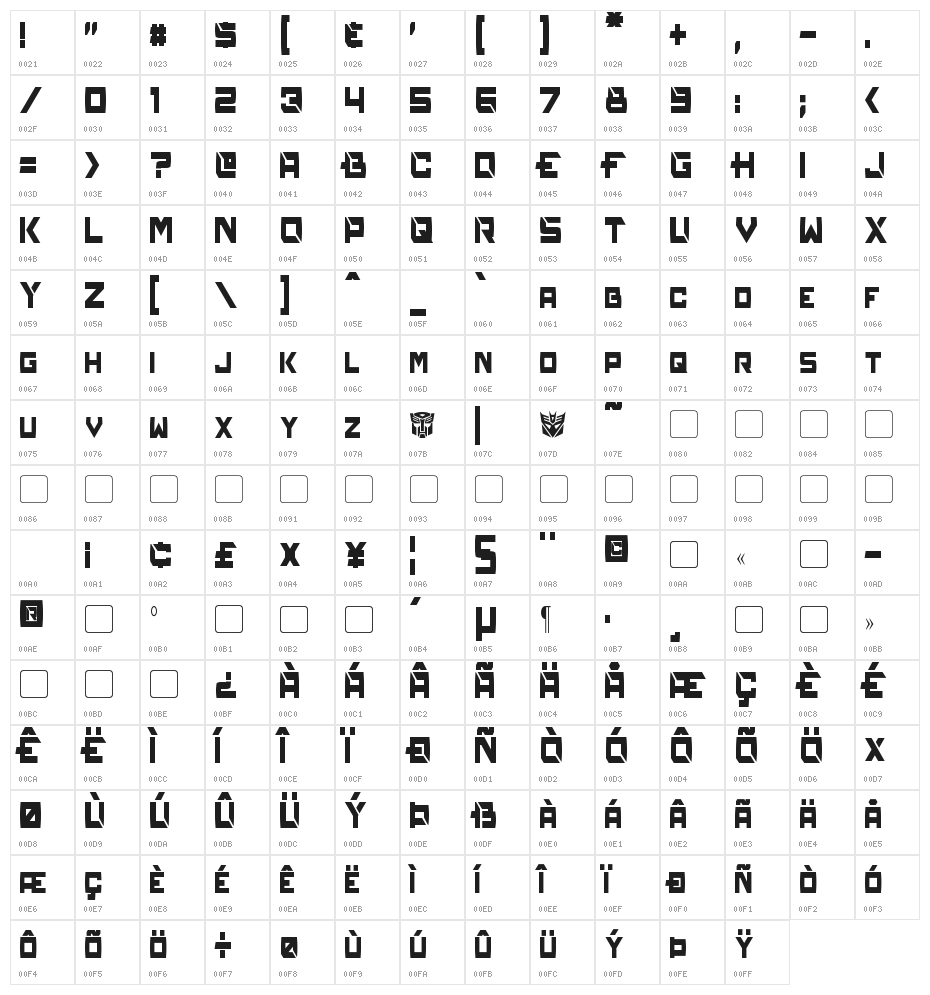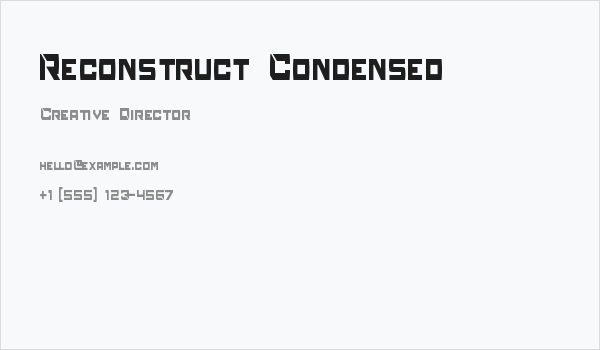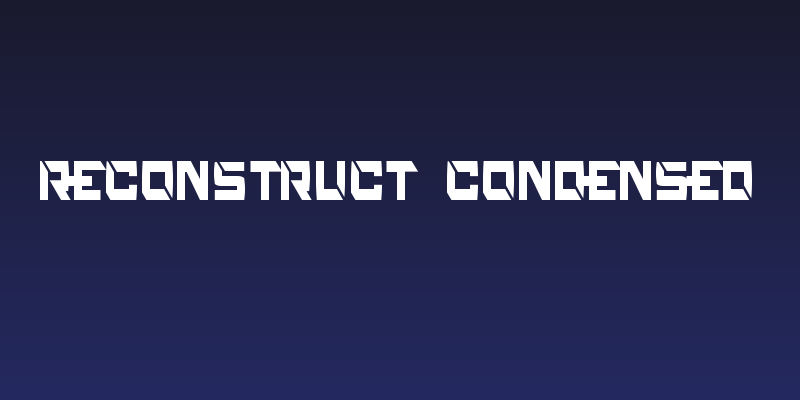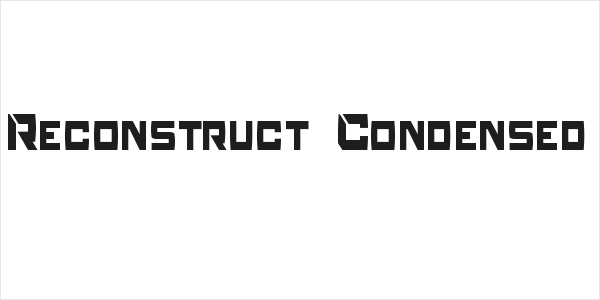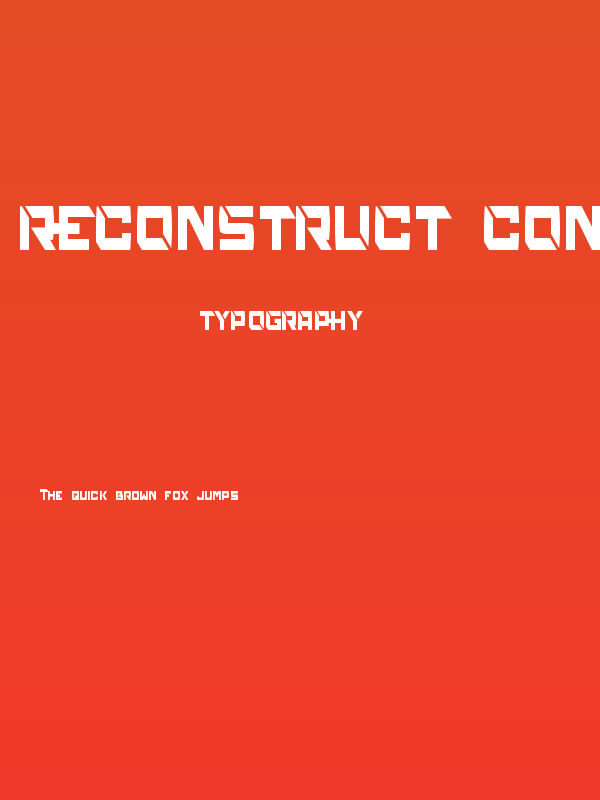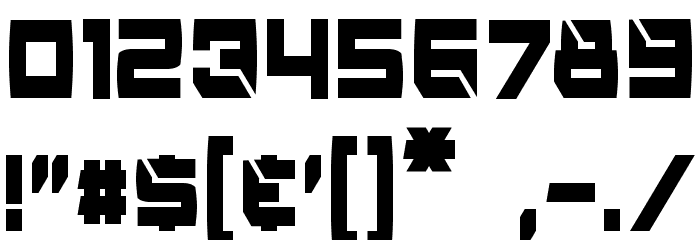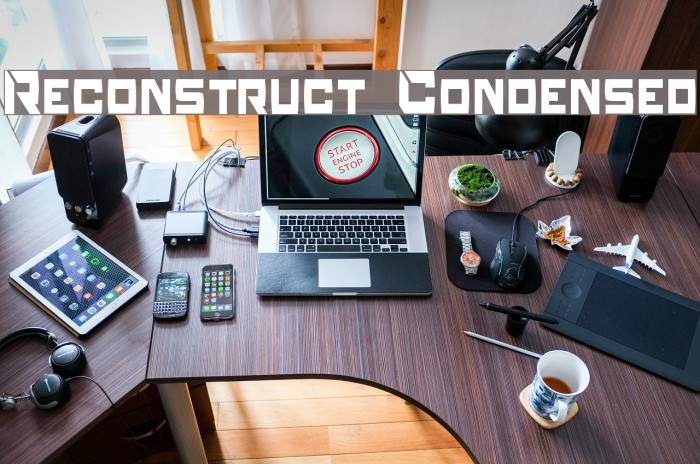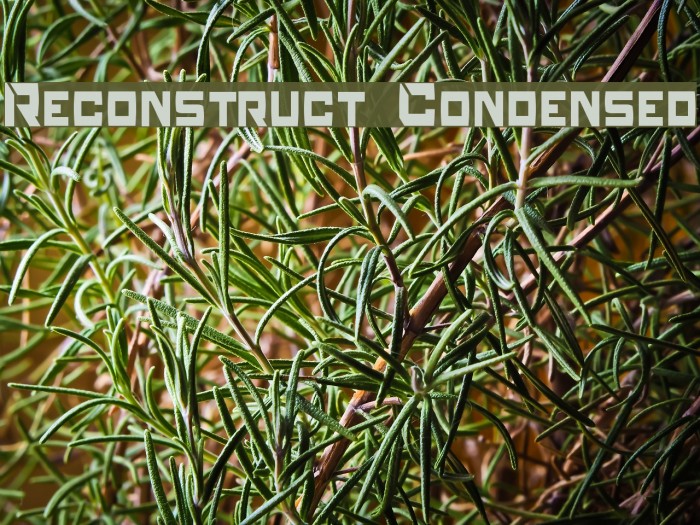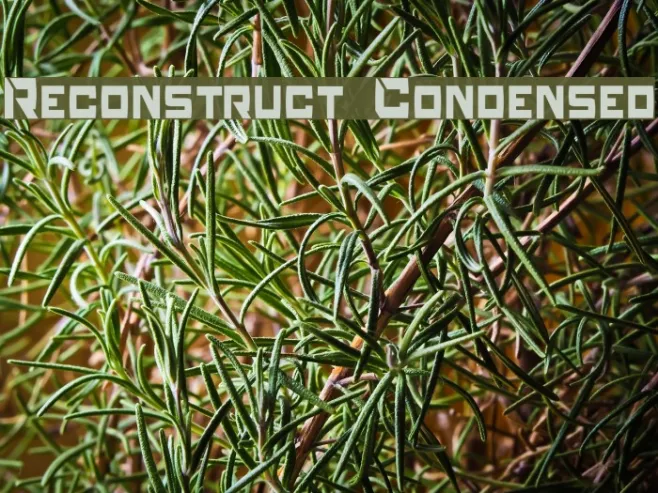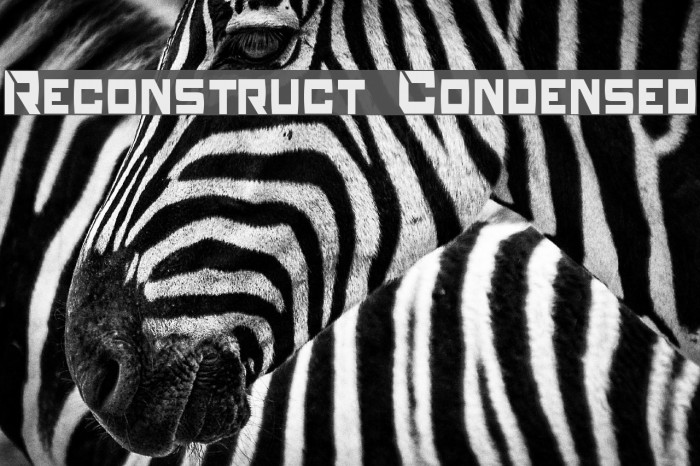
Reconstruct Condensed Font
Reconstruct Condensed Description
This font features a bold, geometric design with a distinctly modern and futuristic aesthetic. The characters are constructed with sharp angles and straight lines, creating a sense of movement and dynamism. The condensed width of the letters enhances the compact and efficient appearance, making it suitable for impactful headlines and titles. The high contrast between the thick and thin strokes adds to the boldness, while the angular cuts give it a unique, edgy look. The font's style is both assertive and sleek, making it ideal for projects that require a strong visual statement.